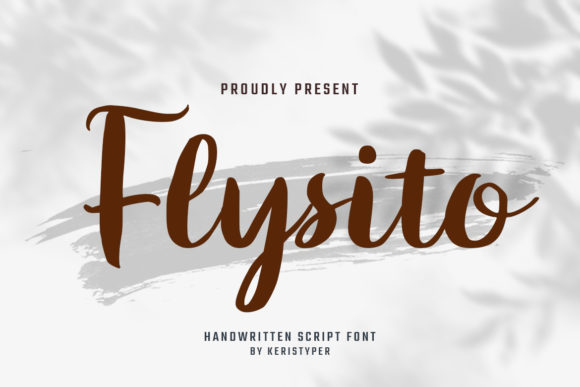
Step into the realm of visual allure and let Flysito Font captivate your designs. Crafted by the skilled hands of Keristyper, Flysito is a masterful script font that dances across your projects with its graceful brush strokes and charming characters.
Unleash your creativity and watch Flysito Font transform your designs into works of art. Whether you seek to craft eye-catching badges or logos, design posters that command attention, or elevate your branding to new heights, Flysito Font is your perfect companion.
Its versatility extends beyond mere words, reaching into the realm of packaging and signage, where Flysito Font adds a touch of sophistication and elegance. Book covers adorned with Flysito Font exude an aura of timeless charm, inviting readers to embark on extraordinary literary journeys.
With Flysito Font, you possess the power to turn your design dreams into tangible masterpieces. Its enchanting curves and dynamic brush style create a visual symphony that captivates and inspires. Experience the magic of Flysito Font and witness the transformation of your designs into captivating works of art.